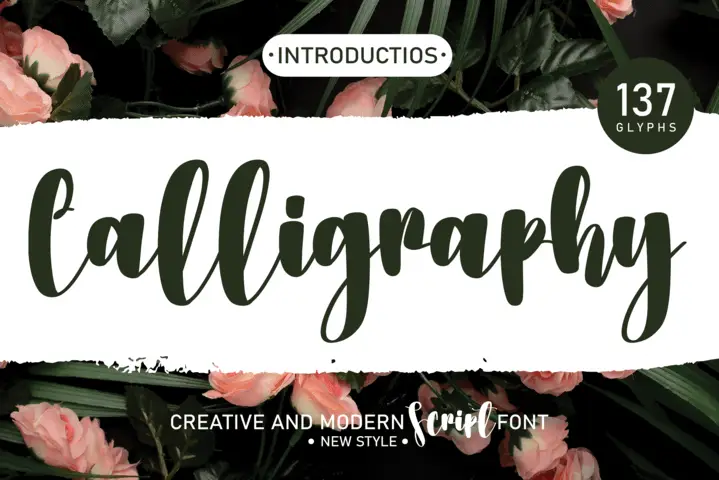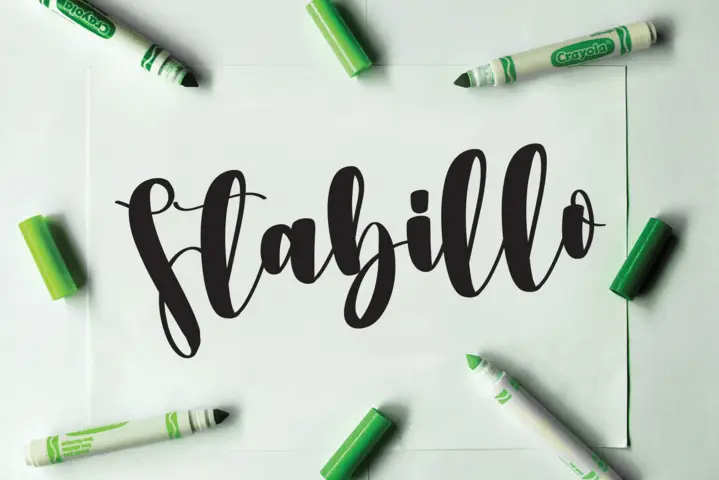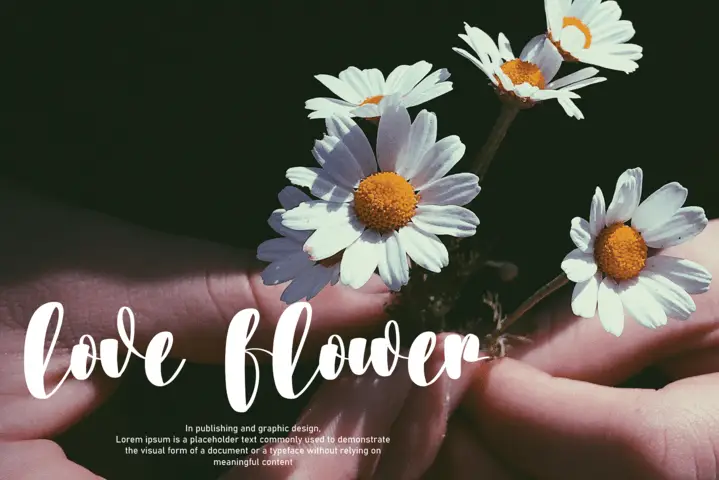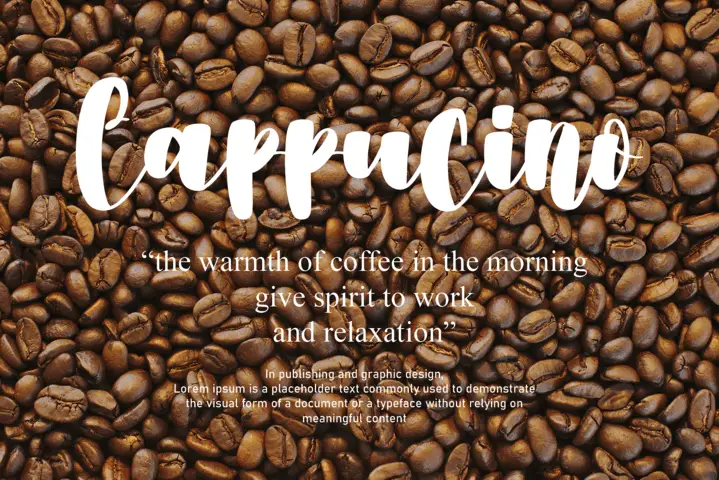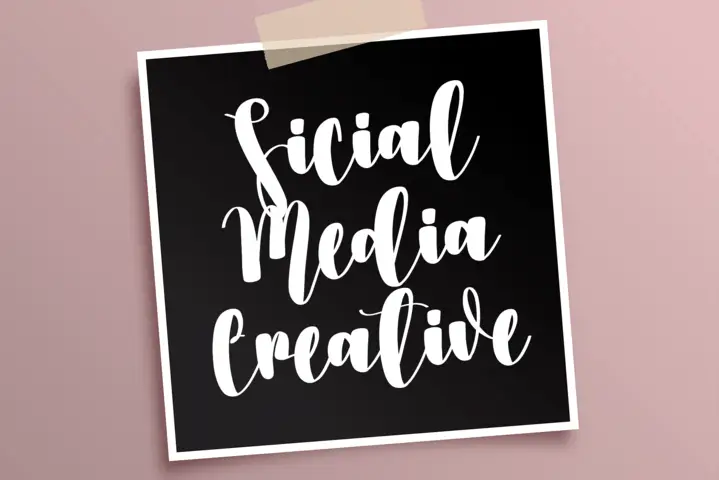
Calligraphy Script Font
Introducing our elegant Calligraphy Script Font, designed to bring a touch of sophistication to your projects. This font features a beautiful blend of flowing curves and artistic strokes, making it perfect for a variety of applications.
• Styles: Script
• Weights: Regular
• Ideal for branding and logo design.
• Perfect for wedding invitations and greeting cards.
• Can be used in web design for an elegant touch.
• Great for print materials such as flyers and brochures.